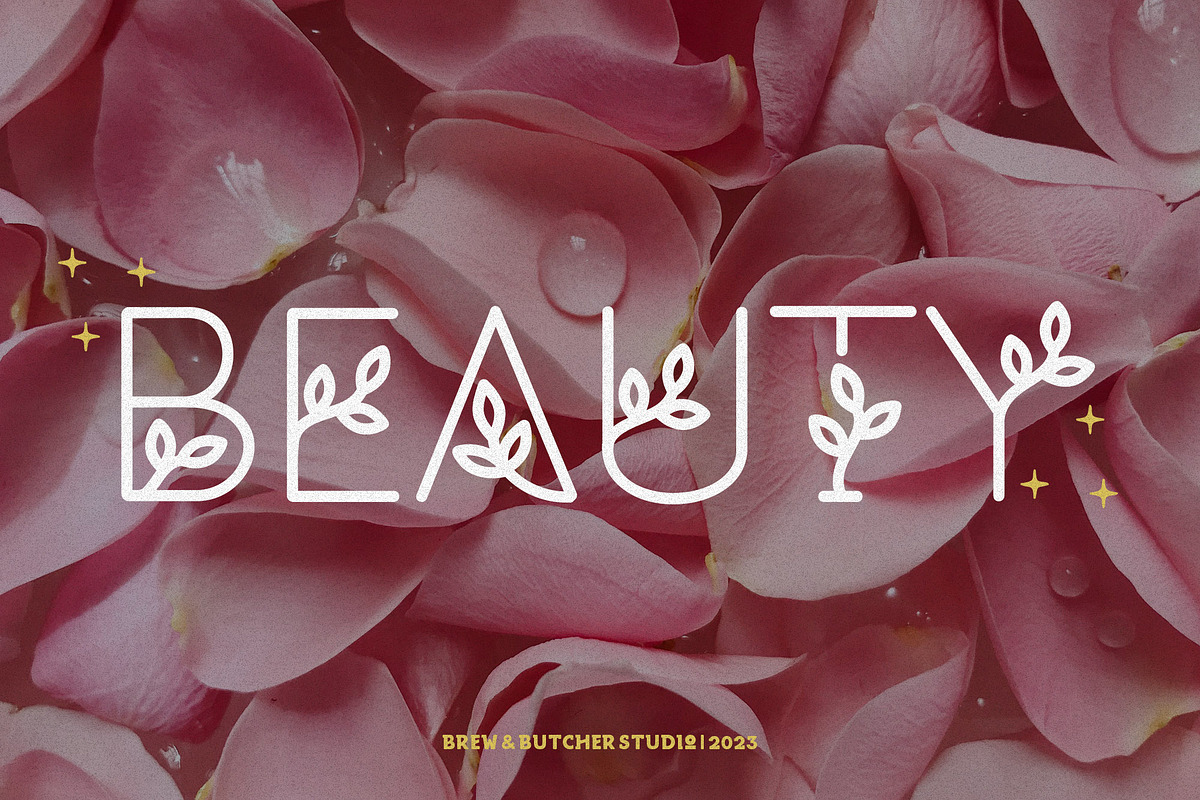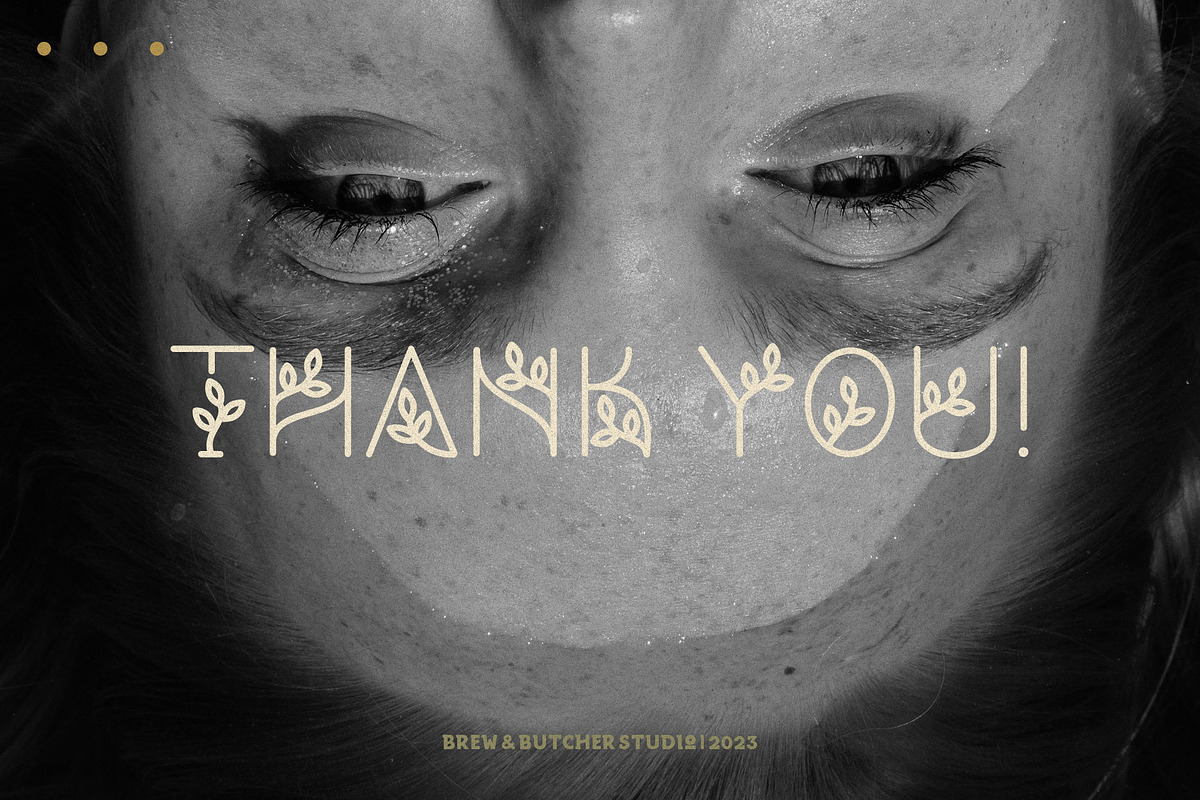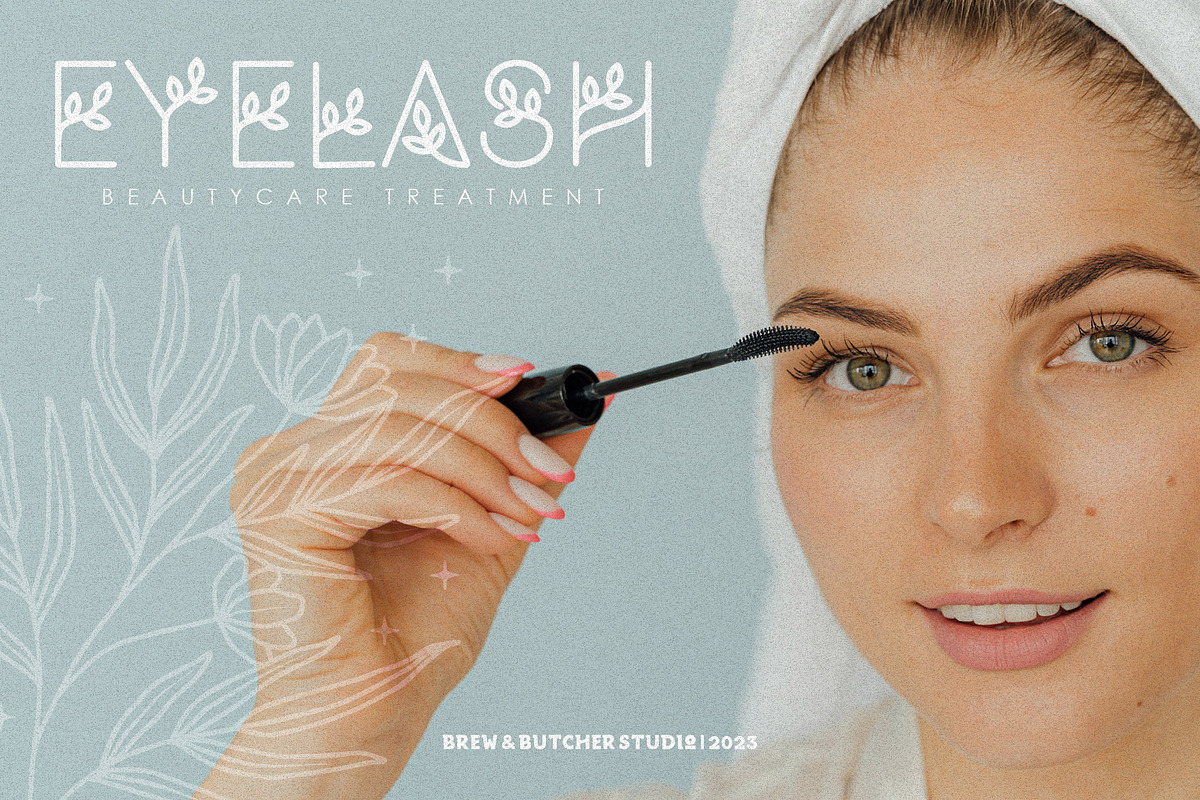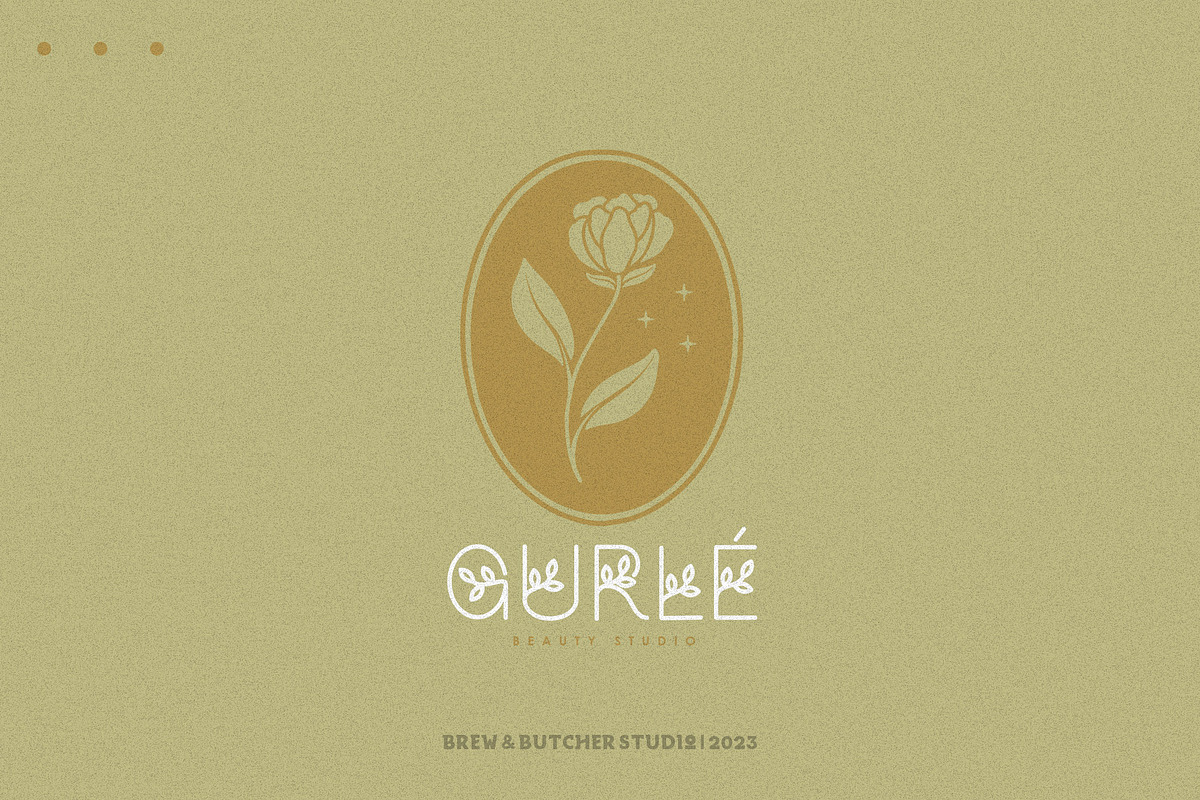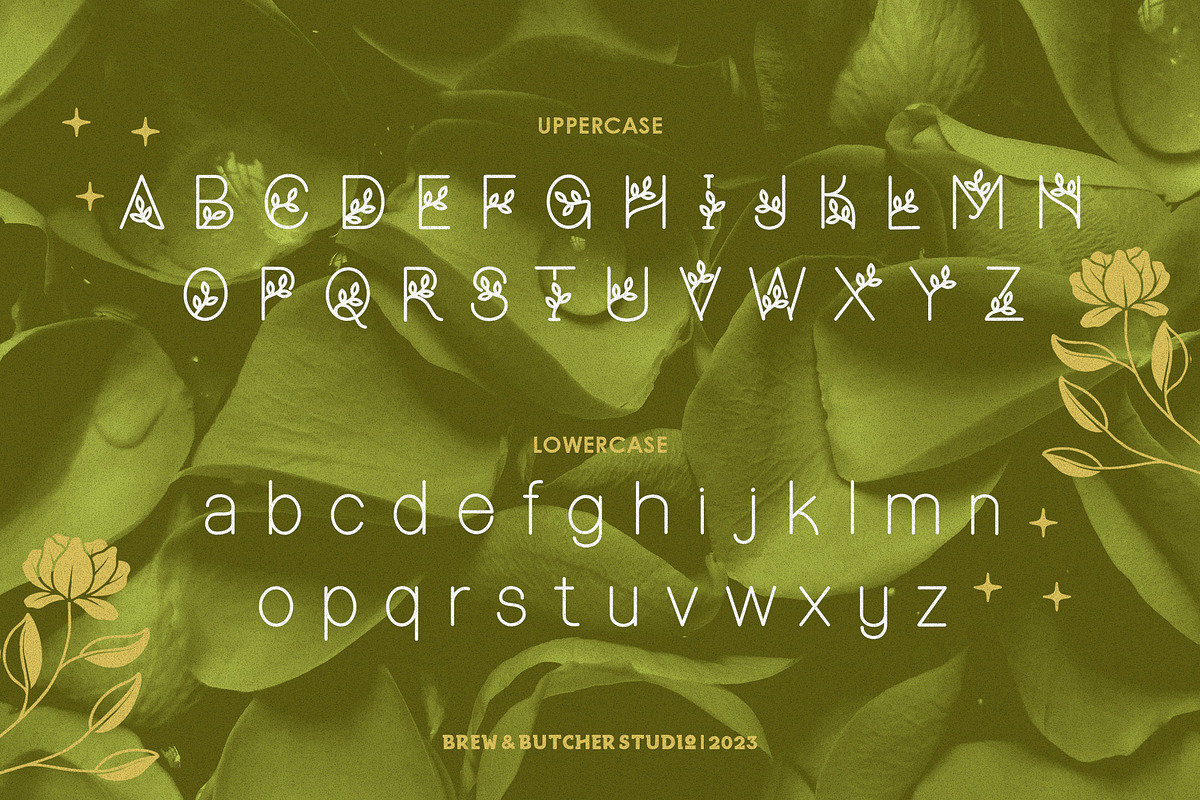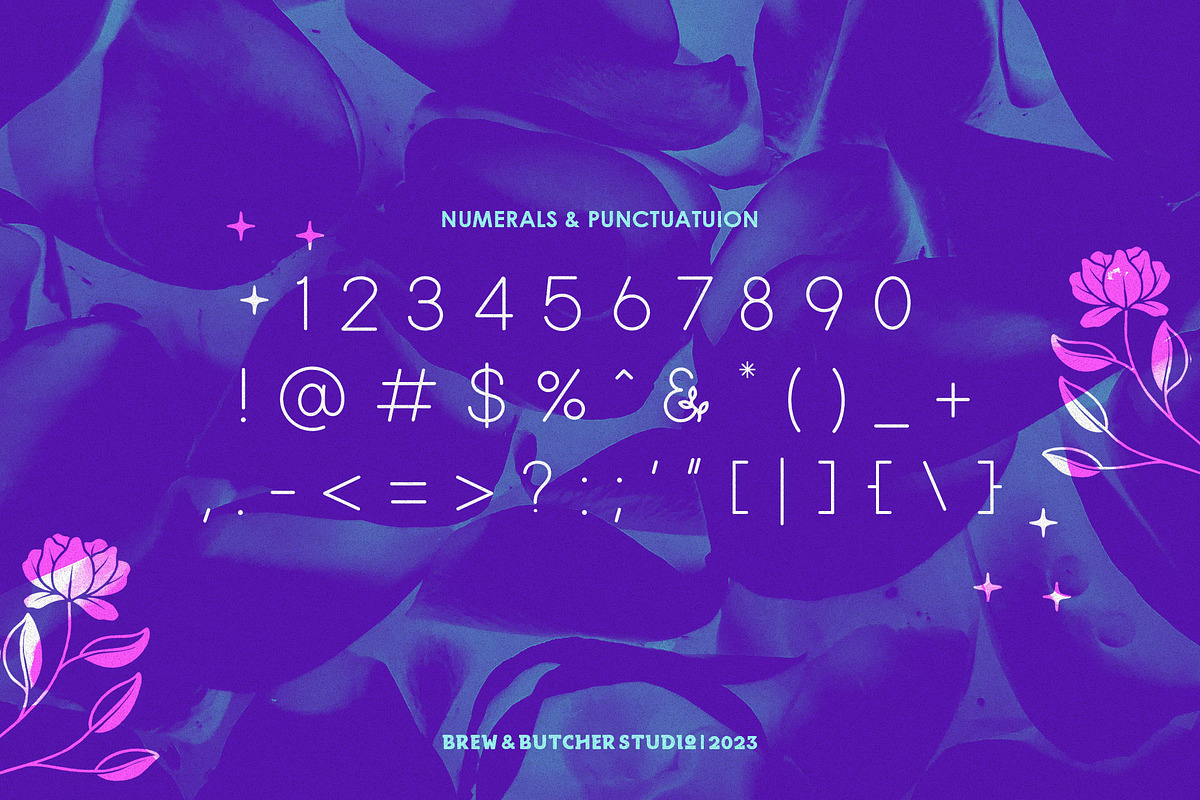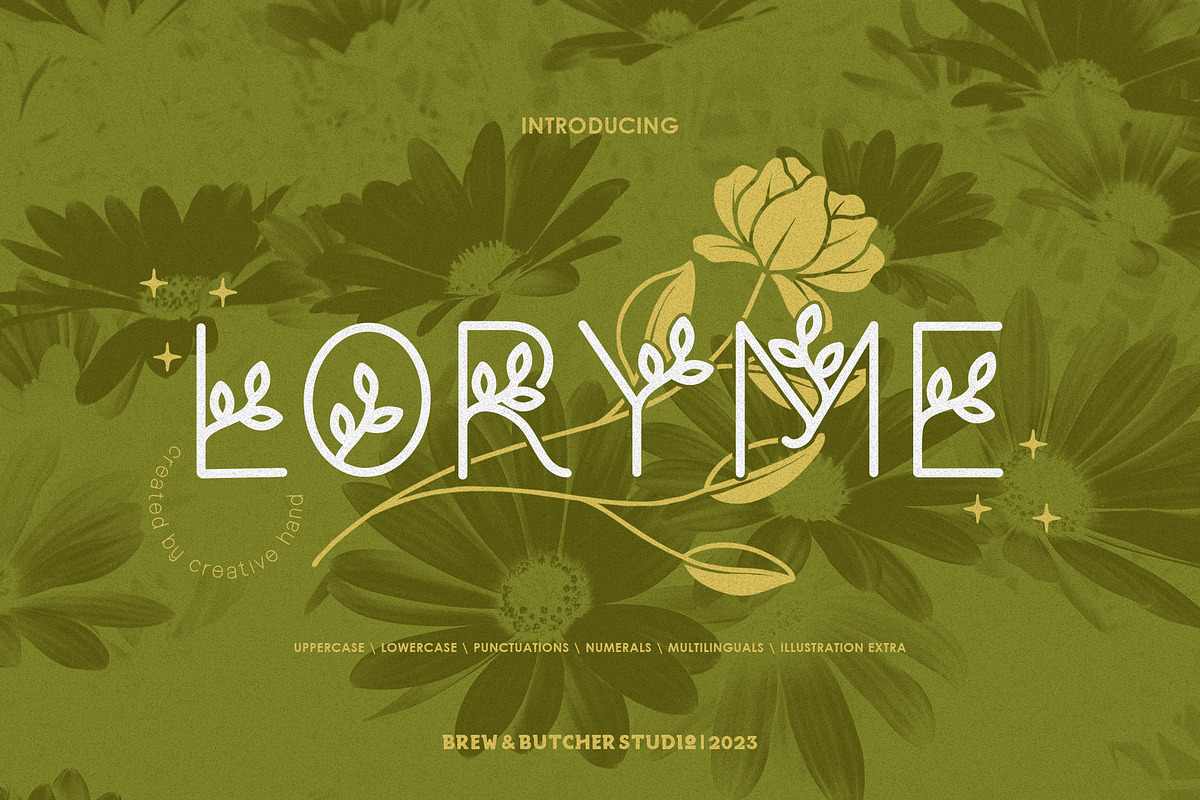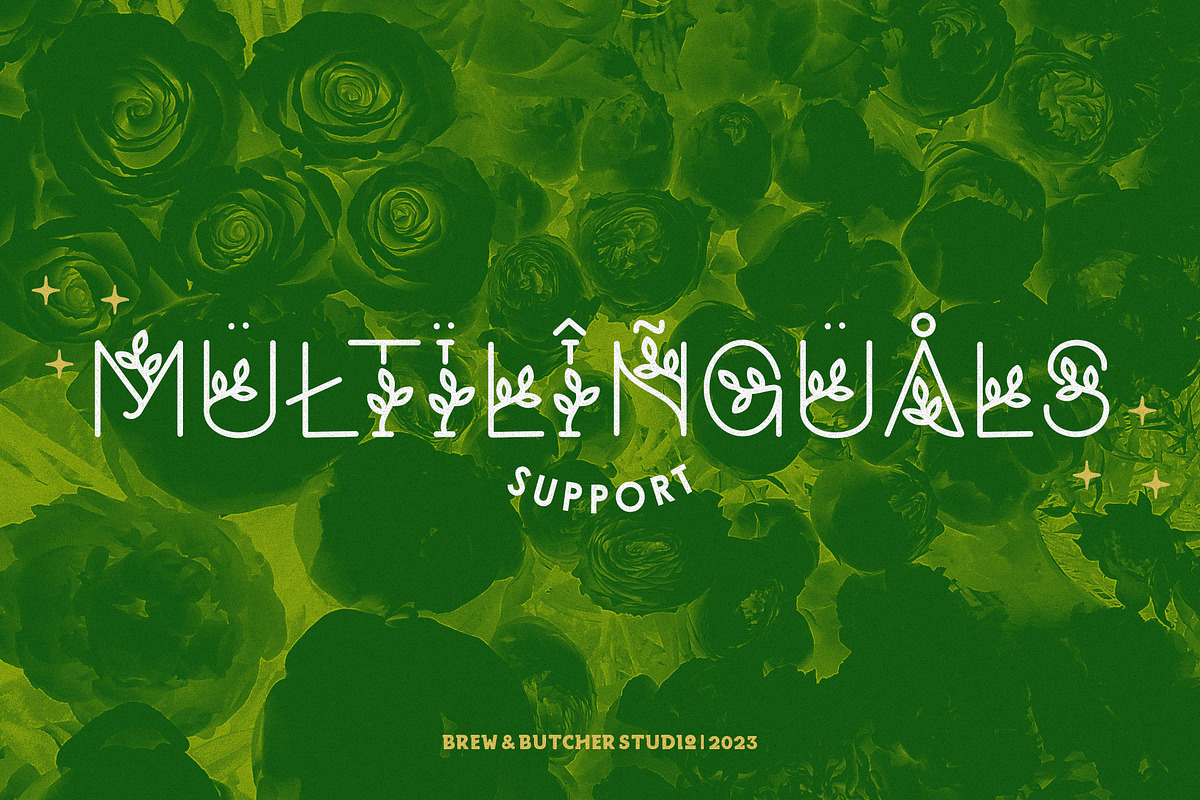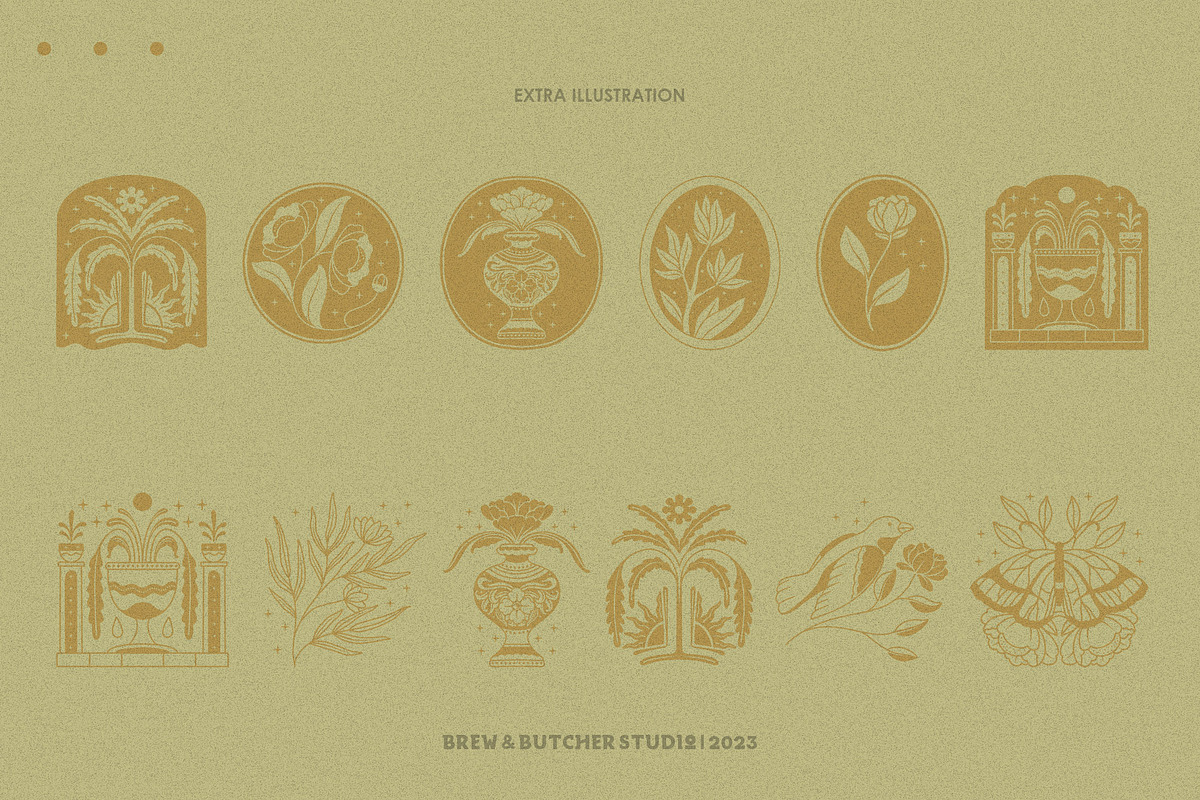
Loryme | Decorative | Illustration
Loryme is a smooth decorative typeface, with simply and unique line. Inspired by a funny view and unique character. Made with thick line accents, thus giving a solid impression, and the shape that is not precise makes it look more unique. Inspired by nature, forest, and its contents. With a line style combined with a leaf image, it provides a refresher on a letter. This font is suitable for beauty, plants, forests, and feminine designs
- Multilanguage
- Extra Illustration